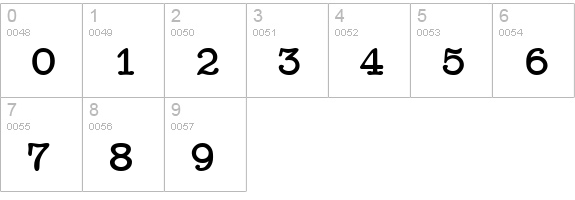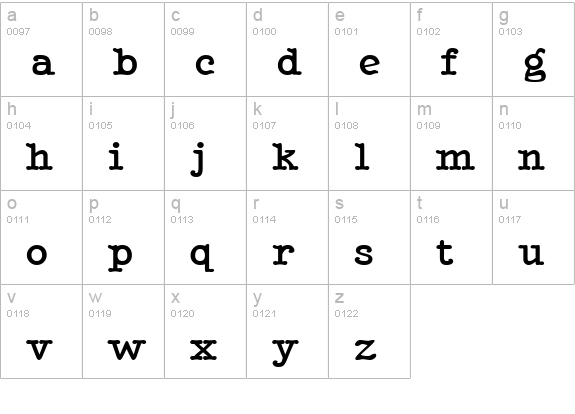
BetterTypeRight Bold is a strong, high-contrast variant in the BetterTypeRight typeface family \xE2\x80\x94 well suited to headlines, attention-grabbing titles, and strong calls-to-action.
BetterTypeRight Bold is a striking and versatile font that exudes confidence and modernity. With its bold and commanding presence, this font is perfect for making a statement in any design project. The strong, clean lines of BetterTypeRight Bold make it ideal for headlines, logos, and bold typography that demands attention. What sets BetterTypeRight Bold apart is not only its bold aesthetic, but also its readability and versatility. Whether you're designing for print or digital media, this font will ensure that your message is delivered loud and clear. Its sleek and sophisticated design will elevate any project, giving it a professional and polished look. And the best part? BetterTypeRight Bold is available for free download at FontsMarket.com. Yes, you read that right - you can access this premium font at no cost, making it a must-have addition to your font library. Don't miss out on the opportunity to enhance your designs with BetterTypeRight Bold - download it today and take your typography to the next level.